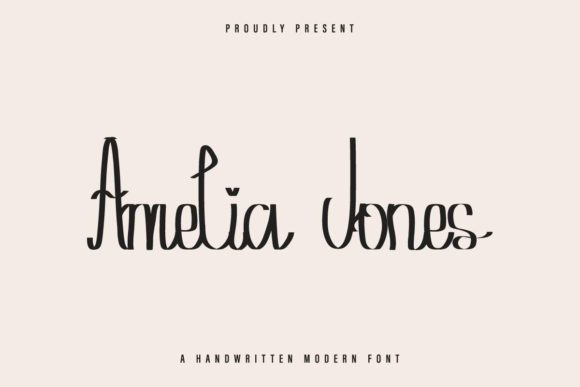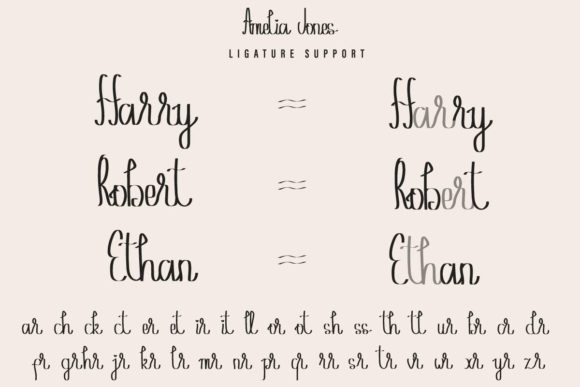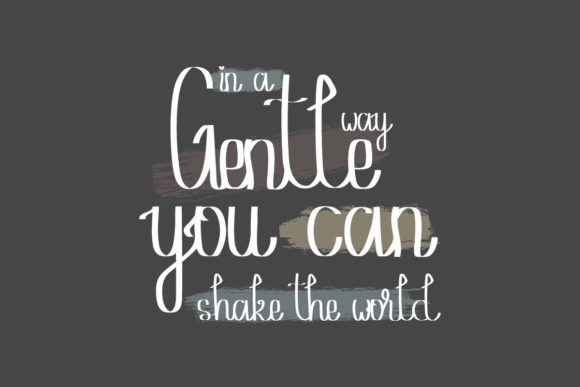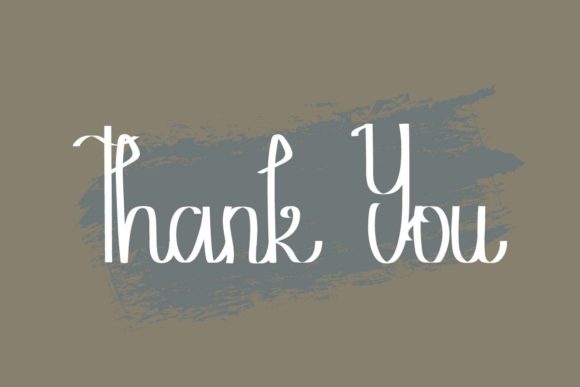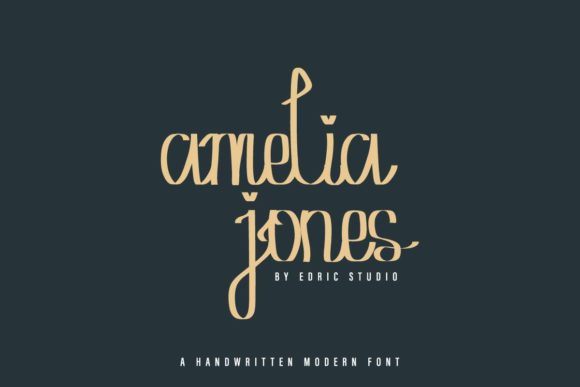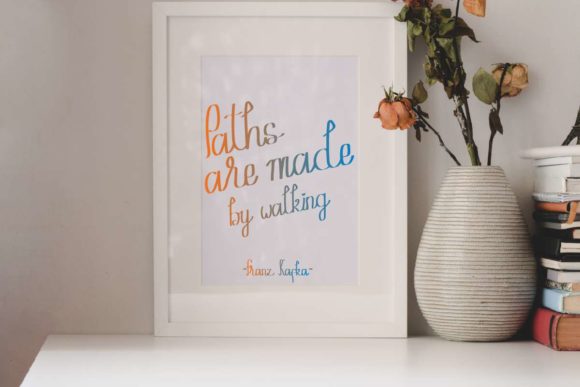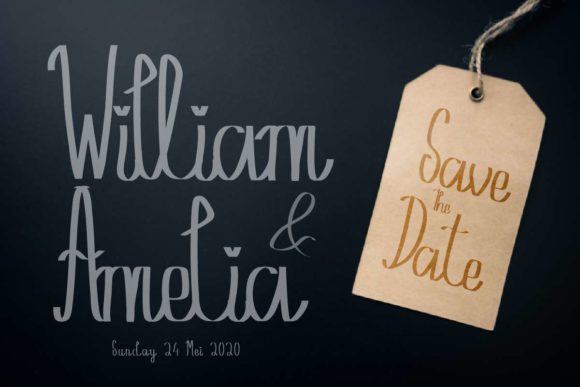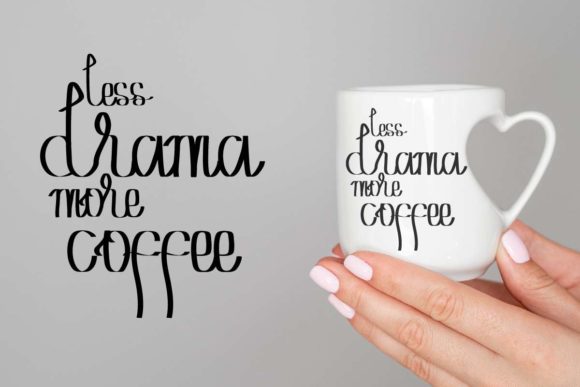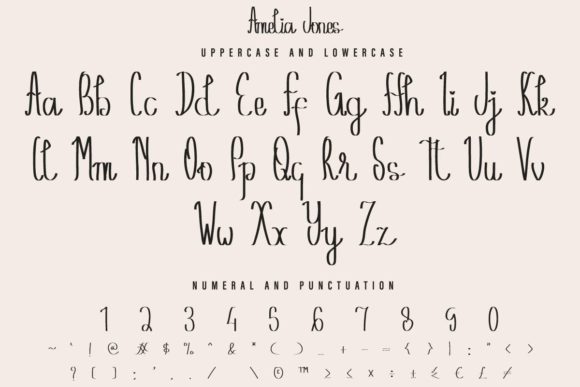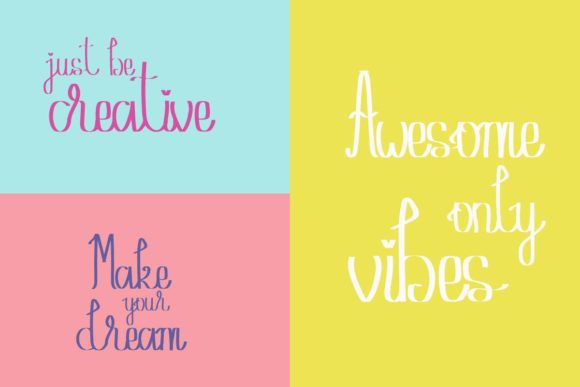
Amelia Jones Font
About Amelia Jones Font
Amelia Jones is a lovely and well balanced handwritten font. Its flowing and distinct style makes this font particularly adept to a wide variety of contexts. This font is PUA encoded which means you can access all of the glyphs and swashes with ease! It features a varying baseline, smooth lines, gorgeous glyphs and stunning alternates.